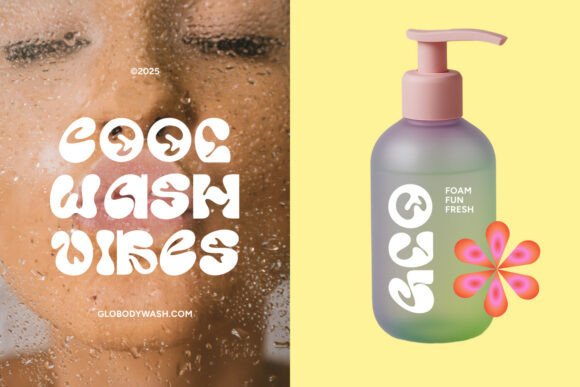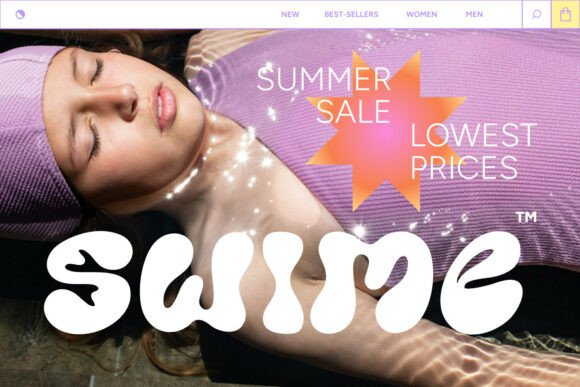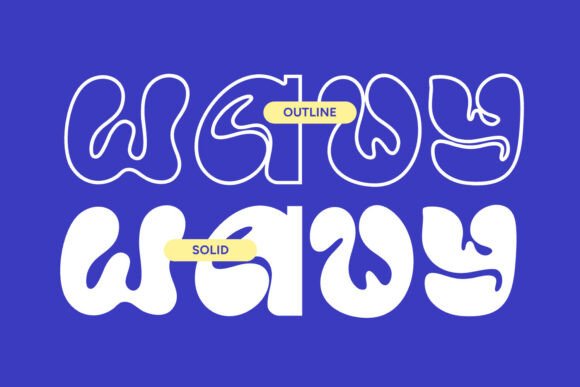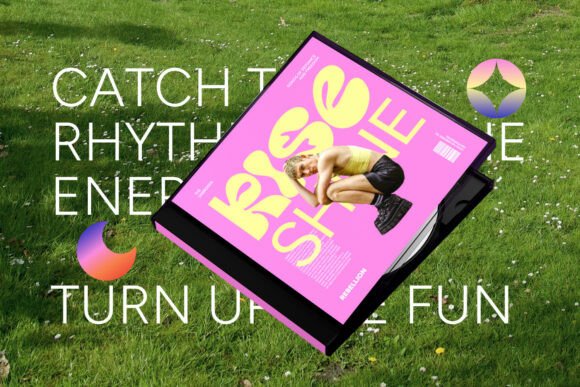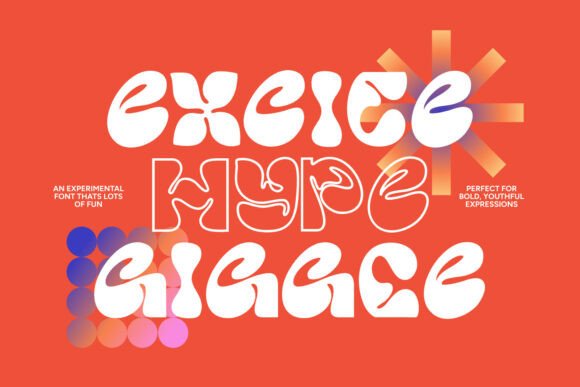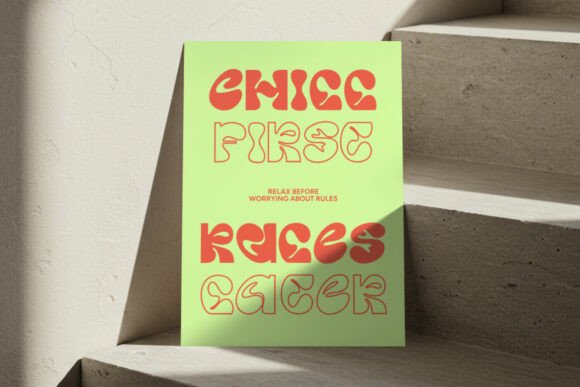
Introducing Geism Font: The Ultimate Retro-Fresh Display Font
Are you tired of using the same old fonts for your designs? Look no further! Geism Font is here to revolutionize your typography with its unique blend of retro and modern vibes. This cheerful, wavy display font is perfect for adding a touch of nostalgia and playfulness to your projects.
What is Geism Font?
Geism Font is a display font that boasts soft, blobby curves that feel both retro and fresh at the same time. Imagine a fusion of 70s groovy vibes and Y2K bubbles, and you’ve got Geism! This font is ideal for a wide range of applications, including skincare and beauty packaging, posters, festival artwork, merch, logos, and big social headlines.
Key Features of Geism Font
- Retro-Fresh Style: Geism Font combines the best of both worlds, blending retro and modern elements to create a unique and eye-catching look.
- Soft, Blobby Curves: The font’s soft, blobby curves give it a playful and cheerful feel that’s perfect for designs that need a touch of whimsy.
- Versatile: Geism Font is suitable for a wide range of applications, from packaging and posters to merchandise and social media headlines.
- Two Styles: Geism Font comes in two styles: Solid and Outline. This allows you to layer, mix weights, or pair them for instant contrast and added visual interest.
Geism Font is a dream come true for designers and crafters looking to add a unique touch to their projects. Whether you’re creating:
- Skincare and Beauty Packaging: Stand out in a crowded market with Geism Font’s playful and eye-catching style.
- Posters and Flyers: Grab attention with Geism Font’s bold and cheerful vibe.
- Festival Artwork: Create eye-catching festival artwork that reflects the fun and carefree spirit of the event.
- Merchandise: Add a touch of personality to your merchandise with Geism Font’s unique style.
- Logos and Branding: Create a memorable brand identity with Geism Font’s distinctive look.
- Social Media Headlines: Make your social media posts stand out with Geism Font’s bold and playful style.
Tips for Using Geism Font
To get the most out of Geism Font, try these tips:
- Experiment with Layering: Combine Solid and Outline styles for added depth and visual interest.
- Mix and Match Weights: Play with different weights to create a unique and dynamic look.
- Pair with Other Fonts: Combine Geism Font with other fonts for a bold and eye-catching look.
Geism Font is a game-changer for designers and crafters looking to add a touch of retro-fresh style to their projects. With its unique blend of soft, blobby curves and playful vibe, this font is perfect for a wide range of applications. Try Geism Font today and take your designs to the next level!